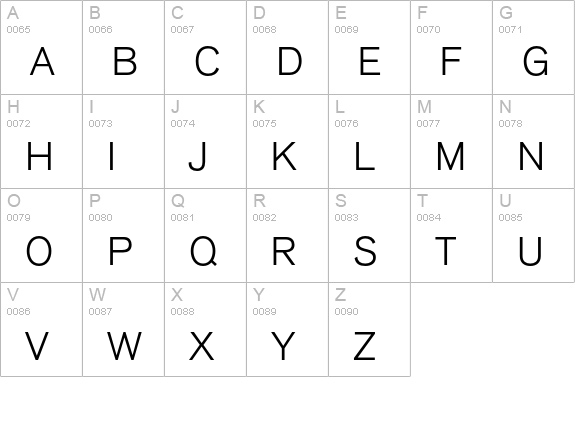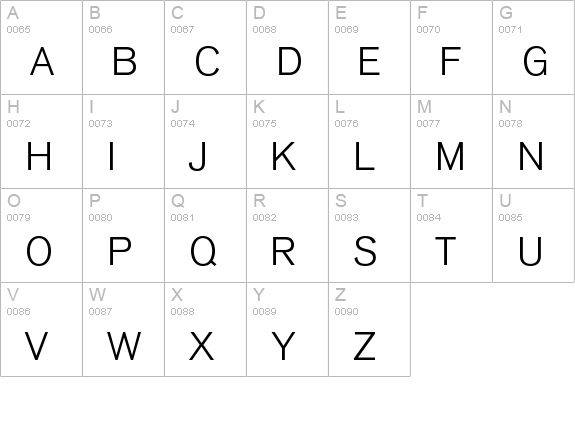
12 Akzidenz Grotesk** Light 02003 is a refined, elegant variant in the 12 typeface family \xE2\x80\x94 well suited to elegant body text, refined sub-headings, and luxury branding.
The 12 Akzidenz Grotesk Light 02003 font is a sleek and modern typeface that exudes elegance and sophistication. Its clean lines and minimalist design make it perfect for a wide range of applications, from branding to editorial design. The light weight of this font adds a touch of delicacy and refinement to any project. What makes this font even more appealing is that it is available for free download at FontsMarket.com. This means that you can easily access this stunning typeface without any cost, making it a valuable addition to your font library. Whether you are a designer looking to elevate your projects or a typographer searching for a versatile font, the 12 Akzidenz Grotesk Light 02003 font is sure to impress with its timeless style and effortless readability.